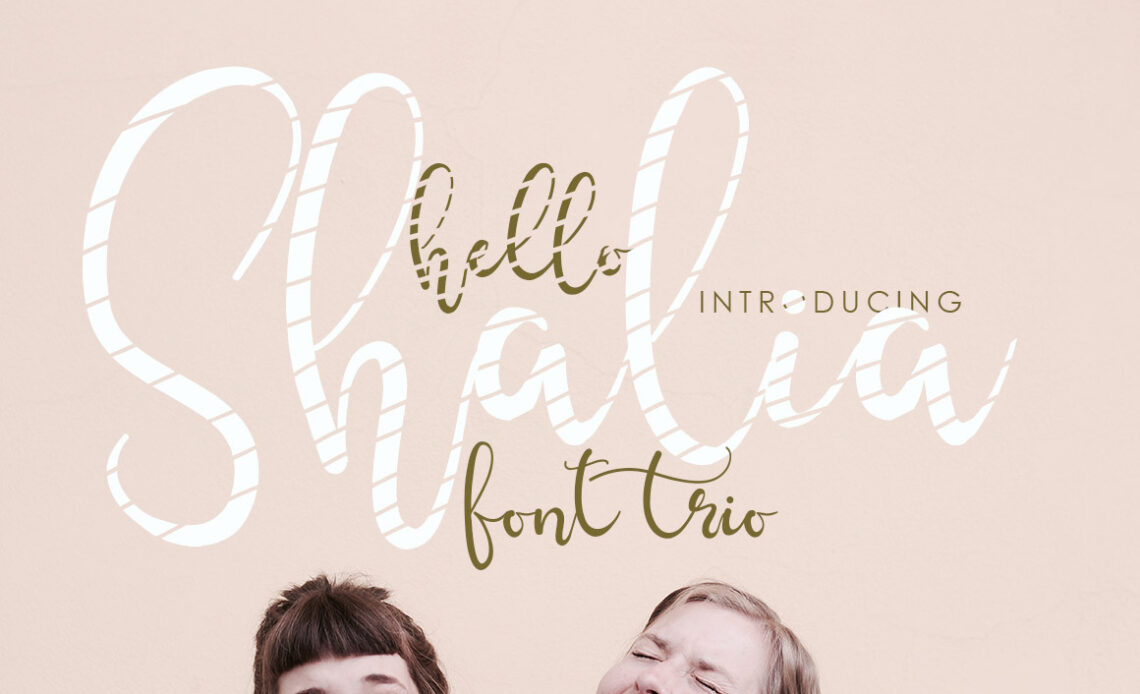
Hello Shalia Font
Discover Hello Shalia, a symphony of elegance and charm that will captivate your designs. This enchanting script font, meticulously crafted by Pineungtype and Missinklab, embodies the beauty of handwritten letters. Each stroke is a testament to artistry, evoking a captivating personality that breathes life into your creations.
Embark on a journey of limitless expression with Hello Shalia. Its fluid lines dance across the page, carrying your words with a touch of whimsy and sophistication. Whether you're designing logos, invitations, or captivating social media posts, Hello Shalia has the power to transform your vision into an unforgettable masterpiece.
Indulge in the versatility of Hello Shalia, a font that graces any project with an air of effortless style. Its timeless appeal effortlessly complements vintage-inspired creations, while its modern flair adds a touch of contemporary allure to your designs. Experience the joy of creating invitations that spark a sense of wonder in your guests, or design social media posts that capture hearts and imaginations.
With Hello Shalia, your designs transcend the ordinary. Its handwritten charm invites a personal connection with your audience, creating a sense of authenticity that resonates with every stroke. Unleash your creativity and let Hello Shalia be your guide, leading you to a world of visual enchantment where your imagination soars.
Step into the world of Hello Shalia today and discover the boundless possibilities that await your designs. This exceptional script font is your key to unlocking a universe of captivating creations that will leave a lasting impression on your audience.